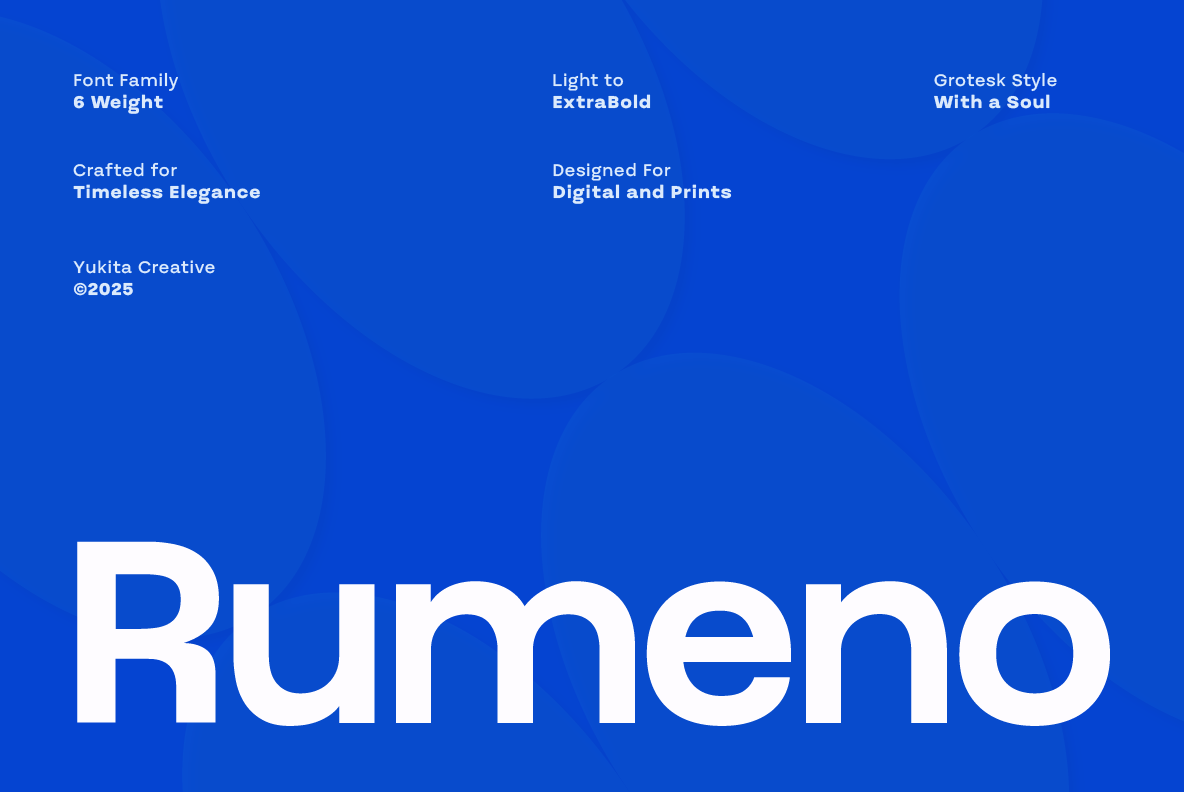
Rumeno – Clean Grotesk Sans Serif Font Family
Meet Rumeno, a clean and versatile grotesk-style sans serif font designed to bring clarity and character to your creative work. With 6 weights from Light to ExtraBold, plus alternate characters for key letters like G, g, y, a, R, r, and t, Rumeno gives you full control over your typographic expression.